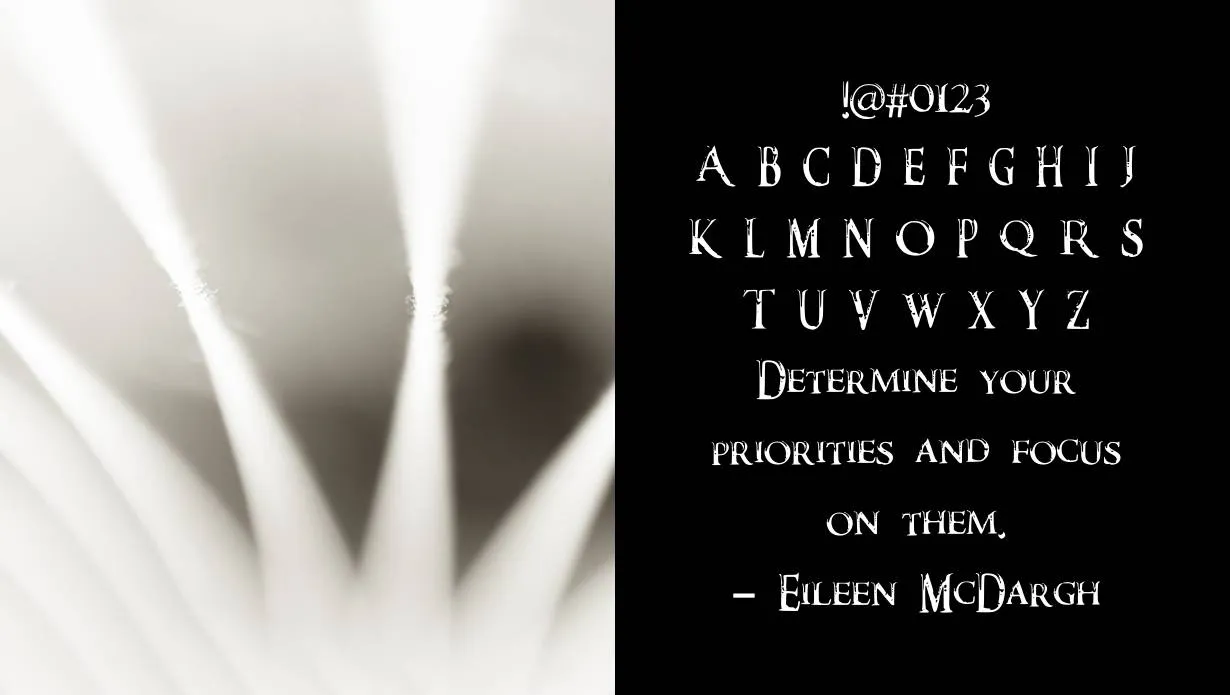
Darks Skyrim Font is a gothic typeface. This font family was designed by DarkX ShaaowX21. The Darks Skyrim Font family includes four fonts’ Darks Skyrim, Light, Bold, and Italic. It is very famous because of its unique design and various features.
It can be used for Halloween-themed projects, as well as dark or horror-themed books, movies, and video games.
Darks Skyrim Font Family
This classy typeface is perfect for those who are looking for a dark and mysterious font. Its alternative ed gothic font is best for various designs.